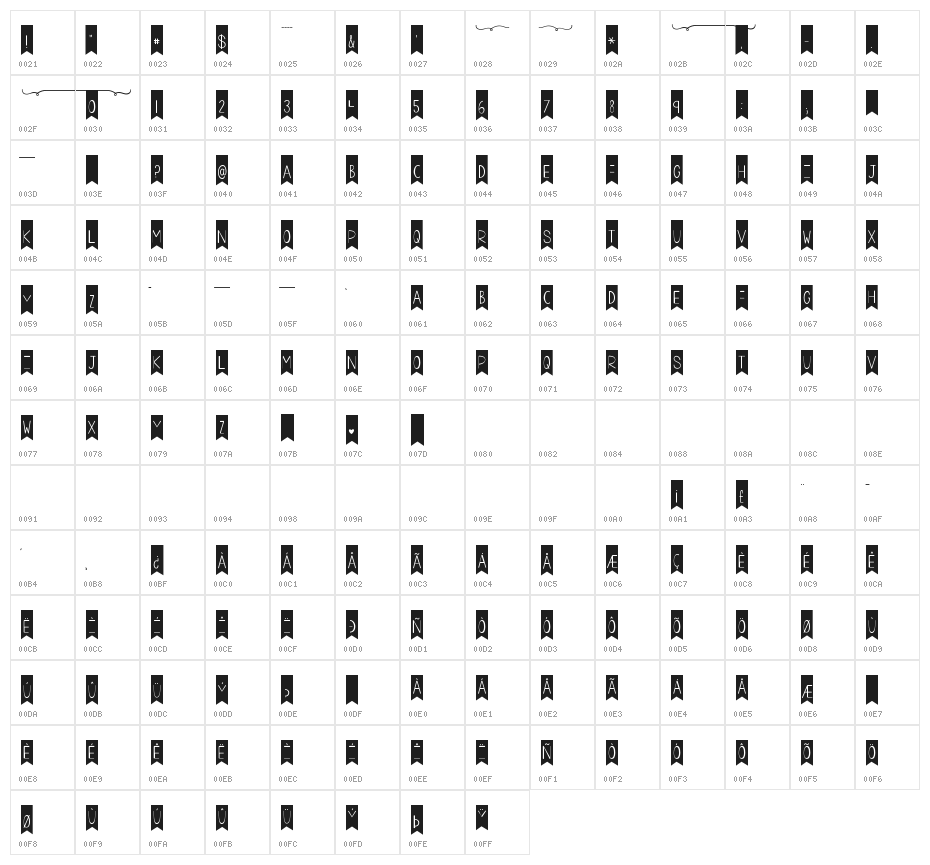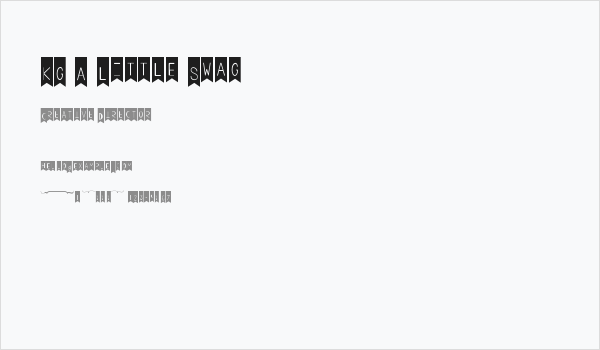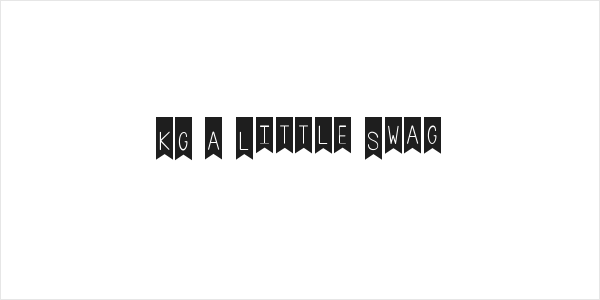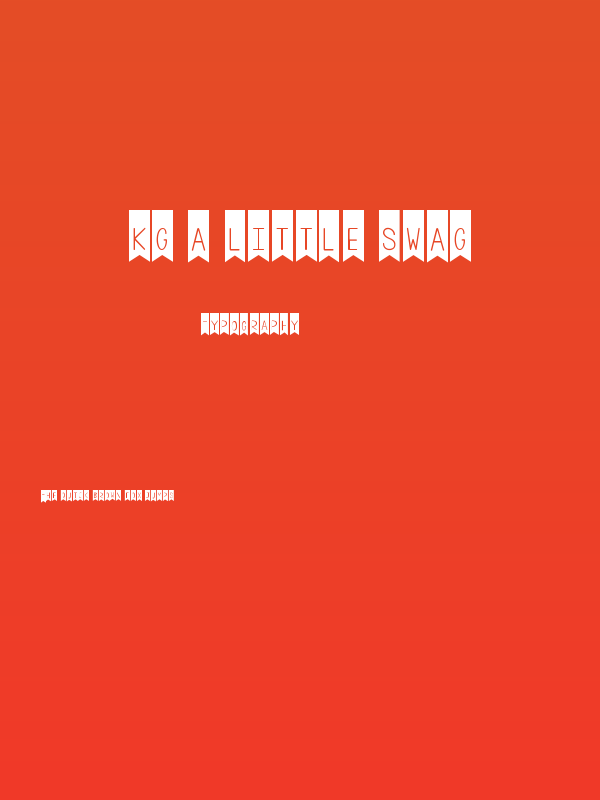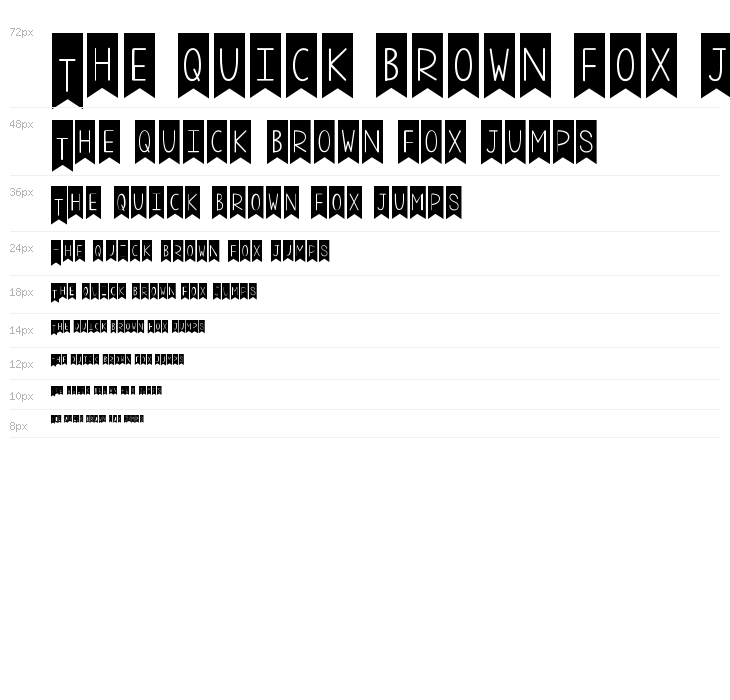
KG A Little Swag Font
KG A Little Swag Description
This playful and decorative font features uppercase and lowercase letters, numbers, and a selection of special characters, all presented on banner-like backgrounds. The characters are hand-drawn with a casual, whimsical style, giving them a unique and friendly appearance. The strokes are consistent in width, providing a uniform look across all characters. The font's design is reminiscent of festive or celebratory themes, making it ideal for projects that require a touch of fun and creativity. The special characters include common punctuation marks and decorative elements, adding to its versatility.
| Proposed Projects | Ideal for party invitations, banners, greeting cards, and playful branding projects. |